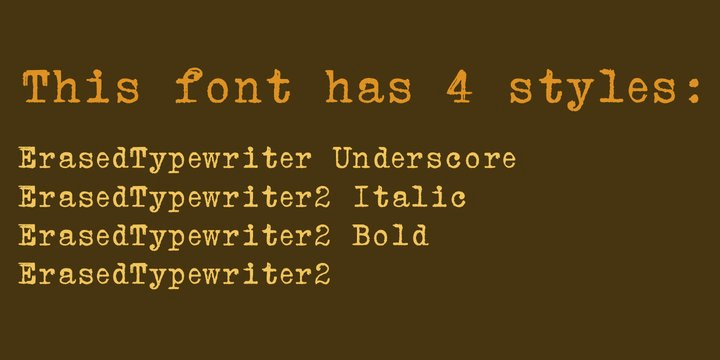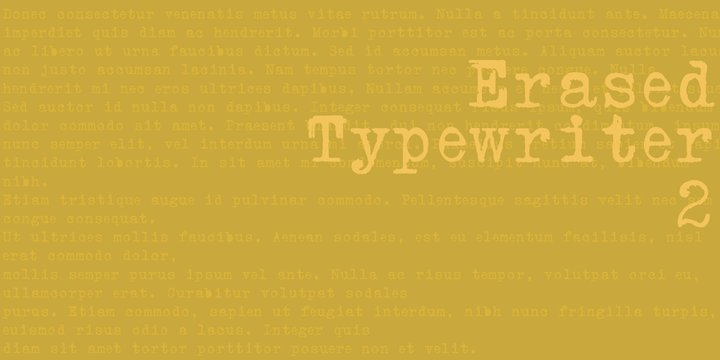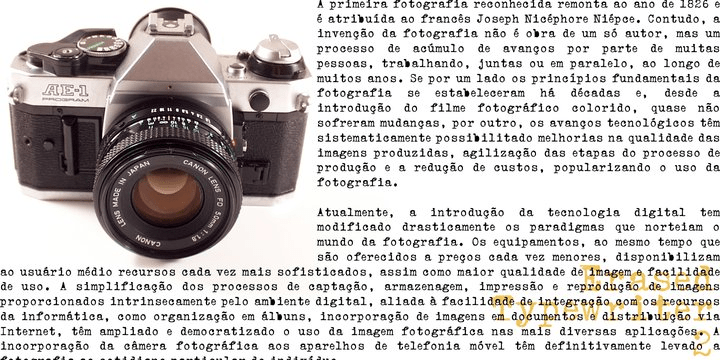
Erased Typewriter 2
Font Family by Intellecta Design
A distressed typewriter font design, great for mimicking the distressed and sloppy ink effect of older machines.